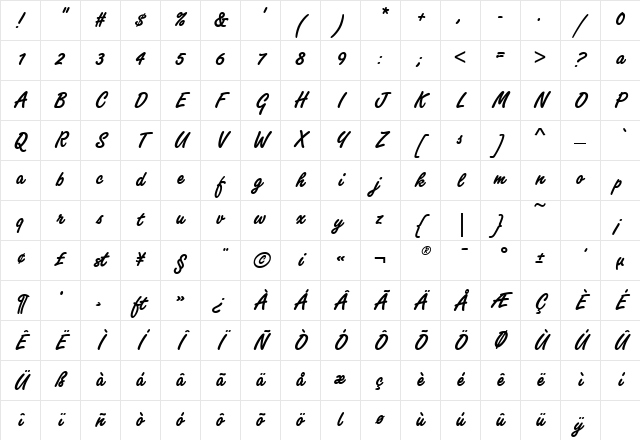
Freestyle Script EF Bold Alternate Regular Free Font
Freestyle Script EF Bold Alternate Regular
Design Context for Freestyle Script EF Bold Alternate
Freestyle Script EF Bold Alternate flows with the natural rhythm of handwritten lettering, making it ideal for designs that call for warmth and personal expression. Its bold stroke weight gives it real presence on the page.
Font Pairing: Combine Freestyle Script EF Bold Alternate with a simple geometric sans for maximum contrast - the tension between flowing curves and clean structure is a classic typographic pairing.
Pro Tip: Use Freestyle Script EF Bold Alternate for short runs of text - names, titles, or taglines. Extended body copy in script faces tires the eye quickly.